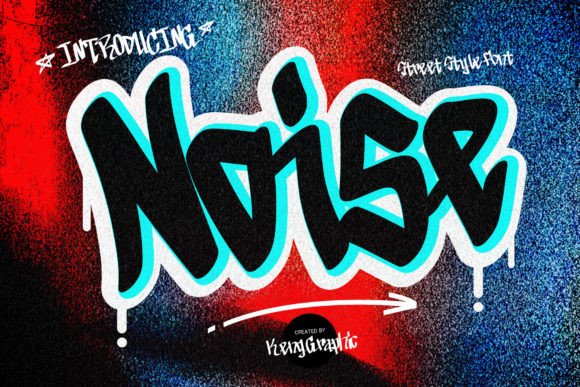
Noise Font: The Ultimate Urban Style for Your Designs
Are you looking for a font that can add an urban and street art vibe to your designs? Look no further than Noise Font. This packed graffiti-style font is perfect for creating bold and eye-catching designs that scream street style. In this article, we’ll dive into the world of Noise Font and explore its features, uses, and benefits.
What is Noise Font?
Noise Font is a unique and stylish font that embodies the spirit of urban street art. Its packed graffiti style gives it a distinctive look that’s perfect for designs that require a bold and edgy aesthetic. Whether you’re creating a logo, advertisement, or apparel design, Noise Font is sure to make a statement.
Features of Noise Font
Noise Font has several features that make it a standout font for urban-style designs. Some of its key features include:
- Packed Graffiti Style: Noise Font has a distinctive packed graffiti style that’s perfect for creating urban-style designs.
- Urban and Street Art Vibe: Everything written in Noise Font has an urban and street art vibe that’s sure to grab attention.
- Versatile: Noise Font is versatile and can be used for a wide range of designs, from t-shirts and sportswear to logos and advertisements.
- Easy to Read: Despite its bold and edgy style, Noise Font is easy to read and understand.
Uses of Noise Font
Noise Font is perfect for a wide range of designs that require an urban and street art vibe. Some of the most popular uses of Noise Font include:
- T-Shirts and Apparel: Noise Font is perfect for creating bold and eye-catching designs for t-shirts, hoodies, and other apparel.
- Sportswear: Noise Font is great for creating sportswear designs that require a bold and edgy aesthetic.
- Logos: Noise Font can be used to create unique and memorable logos for businesses and brands.
- Advertisements: Noise Font is perfect for creating eye-catching advertisements that grab attention.
Benefits of Using Noise Font
There are several benefits to using Noise Font for your designs. Some of the most significant benefits include:
- Unique and Memorable Designs: Noise Font helps create unique and memorable designs that stand out from the crowd.
- Urban and Street Art Vibe: Noise Font gives your designs an urban and street art vibe that’s sure to appeal to a wide audience.
- Versatility: Noise Font is versatile and can be used for a wide range of designs.
- Easy to Read: Noise Font is easy to read and understand, making it perfect for designs that require a clear message.
Tips for Using Noise Font
Here are some tips for using Noise Font:
- Use it Sparingly: Use Noise Font sparingly to avoid overwhelming your design.
- Combine with Other Fonts: Combine Noise Font with other fonts to create a unique and interesting design.
- Experiment with Colors: Experiment with different colors to find the perfect combination for your design.
- Keep it Simple: Keep your design simple and avoid cluttering it with too much text or graphics.
Noise Font is a unique and stylish font that’s perfect for creating urban-style designs. Its packed graffiti style and urban and street art vibe make it a standout font for designs that require a bold and edgy aesthetic. With its versatility, ease of use, and range of benefits, Noise Font is a great choice for designers looking to add an urban touch to their designs.
- What is Noise Font?: Noise Font is a packed graffiti-style font that embodies the spirit of urban street art.
- What are the uses of Noise Font?: Noise Font is perfect for creating designs for t-shirts, sportswear, logos, advertisements, and more.
- What are the benefits of using Noise Font?: Noise Font helps create unique and memorable designs, gives your designs an urban and street art vibe, and is versatile and easy to read.